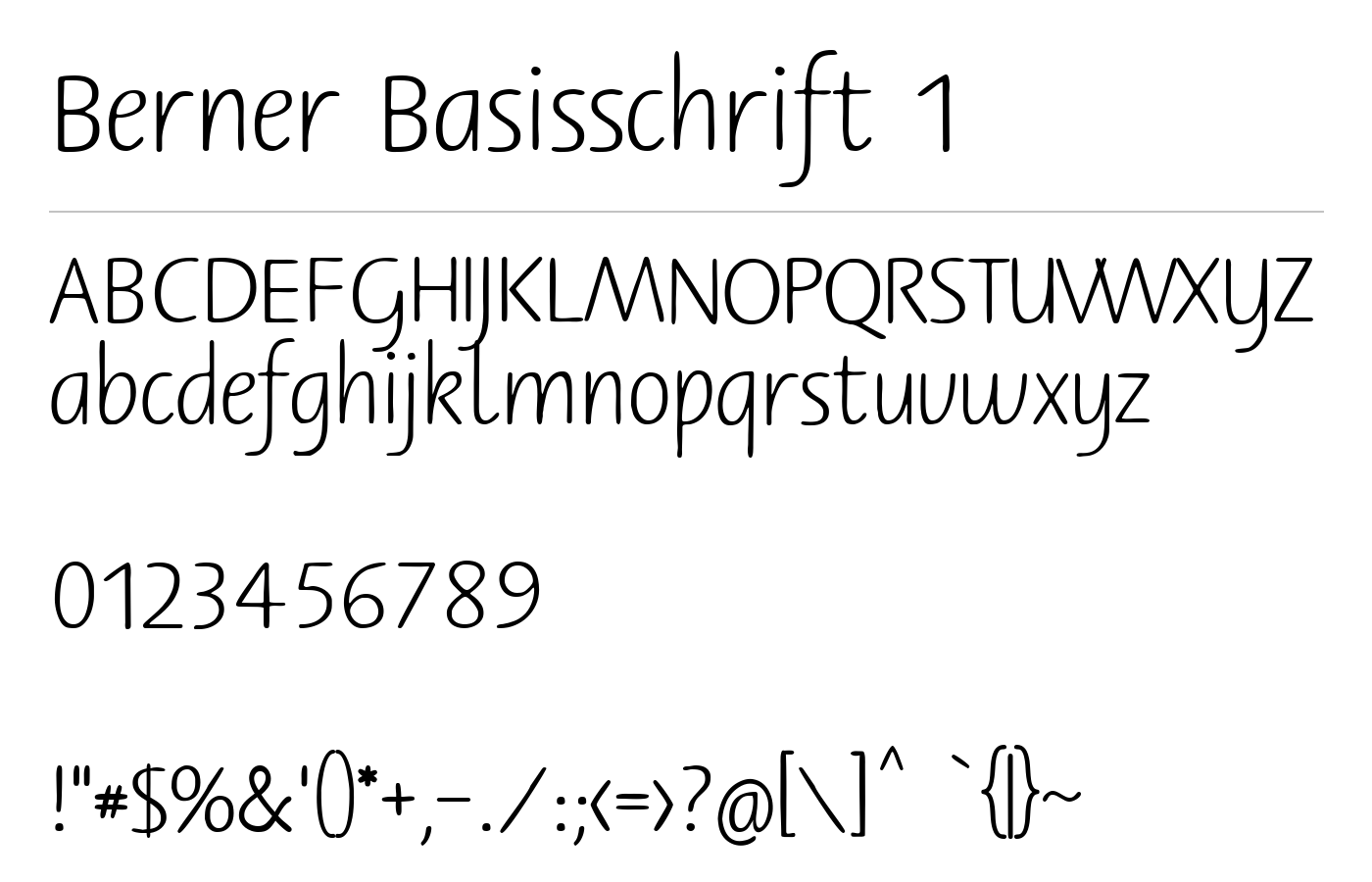
Berner Basisschrift 1 is a playful and friendly sans serif font with a hand-drawn feel, featuring thin, slightly irregular strokes and tall, narrow letterforms. Its unique, casual style makes it perfect for projects that want to communicate approachability and creativity, such as children's books, informal branding, and fun editorial designs. With its balanced legibility and charming personality, it works well in both headlines and short blocks of text where a personal touch is desired.
Berner Basisschrift 1 Font
About Berner Basisschrift 1 Font
| Font family | Berner Basisschrift 1 Font |
| Designer | Peter Wiegel |